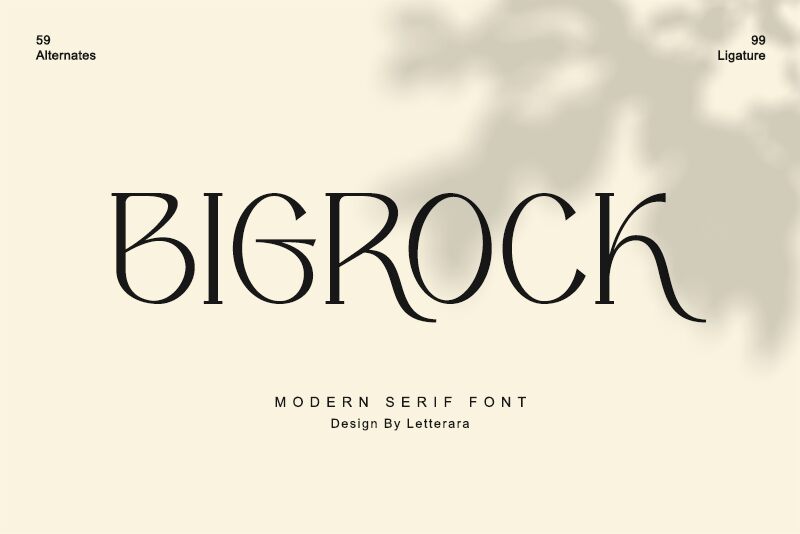
Bigrock by Letterara stands out with its harmoniously balanced serif design, merging contemporary flair with a nod to vintage aesthetics. This semi-light typeface boasts a personality that is versatile enough to enhance an array of creative endeavors. Its modern yet timeless appearance makes it ideal for projects that require a touch of sophistication—be it the chic branding of a startup, the bespoke elegance of wedding invitations, or the impactful titles in editorial layouts.
Crafted with precision, Bigrock's unique character seamlessly adapts to both retro-inspired mood boards and cutting-edge design schemes. Whether you're looking to infuse your packaging with an air of artisanal charm or elevate your logotype with subtle refinement, Bigrock promises to deliver unparalleled style and legibility. Embrace the distinctive versatility of Bigrock for your next project and watch as it transforms words into visual poetry.